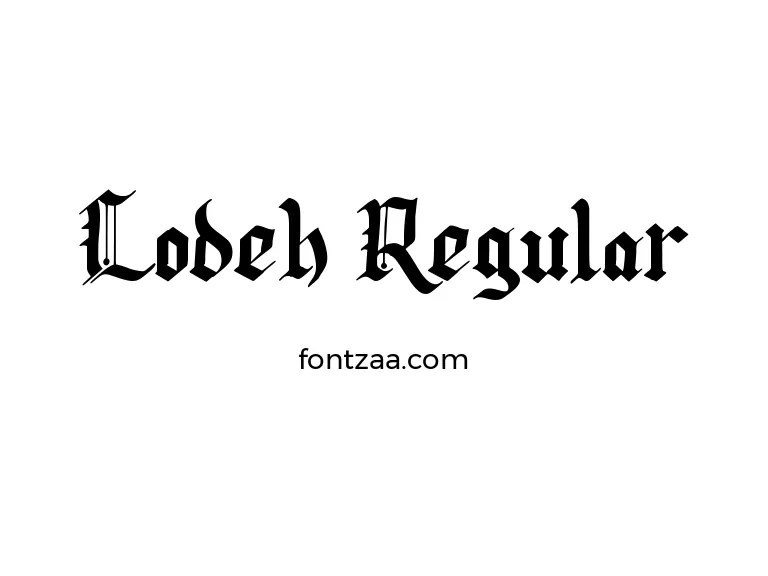
Lodeh Regular Font is a dramatic typeface created for designers who want typography with a distinctive visual identity. Lodeh Regular Font brings a dramatic personality to typography and gives designers a flexible starting point for creative display work. Using generous space around the lettering can help the details of the typeface remain visible instead of competing with other elements. Its letter shapes become especially noticeable at larger sizes, where spacing and proportions can be explored more clearly. The font can work as the primary visual element in a minimal layout or as part of a more detailed composition. Designers may explore it across horror posters, game artwork, album covers, Halloween graphics and dark branding, depending on the tone and requirements of the project. Designers should evaluate the typeface inside the real project because a standalone preview cannot show every possible visual combination. For layouts containing longer information, pairing it with a simpler supporting typeface can improve readability and hierarchy. Source metadata currently associates the font with Dm Letter Studio. The listed license is Free for personal use, although users should still review the original font package before commercial use. A few quick layout variations can help determine where the font creates the strongest visual result.
With its distinctive letterforms, Lodeh Regular Font can introduce a dramatic character into headlines, branding and promotional layouts. The typeface can change considerably depending on tracking, scale, alignment, background and surrounding imagery. Different color combinations can make the same font feel subtle, energetic, premium or highly decorative. Using generous space around the lettering can help the details of the typeface remain visible instead of competing with other elements. Its display-focused appearance makes it worth testing in horror posters, game artwork, album covers, Halloween graphics and dark branding. Keeping secondary typography simple often allows the distinctive qualities of the main font to remain more visible. Previewing the final layout on both large and small screens helps identify spacing and readability problems early. According to the available font information, the typeface is associated with Dm Letter Studio. The listed license is Free for personal use, although users should still review the original font package before commercial use. The most effective treatment will vary by project, so designers should compare several versions before finalizing the artwork.
Lodeh Regular Font stands out through its individual shapes and can become an important visual element in digital and print projects. The typeface can change considerably depending on tracking, scale, alignment, background and surrounding imagery. Using generous space around the lettering can help the details of the typeface remain visible instead of competing with other elements. Different color combinations can make the same font feel subtle, energetic, premium or highly decorative. Possible applications include horror posters, game artwork, album covers, Halloween graphics and dark branding. For layouts containing longer information, pairing it with a simpler supporting typeface can improve readability and hierarchy. Keeping secondary typography simple often allows the distinctive qualities of the main font to remain more visible. Source metadata currently associates the font with Dm Letter Studio. The available licensing label is Free for personal use, but redistribution and commercial permissions should always be confirmed from the original source. The most effective treatment will vary by project, so designers should compare several versions before finalizing the artwork.
Lodeh Regular Font Family
Designers can use the Lodeh Regular Font Family in several ways by varying scale, alignment, background treatment and supporting typography. Designers exploring a dramatic typeface can use Lodeh Regular Font to add a more recognizable visual voice to font-family exploration. Different color combinations can make the same font feel subtle, energetic, premium or highly decorative. Using generous space around the lettering can help the details of the typeface remain visible instead of competing with other elements. Testing several arrangements before choosing the final version can reveal which characteristics of the typeface work best. Designers may explore it across horror posters, game artwork, album covers, Halloween graphics and dark branding, depending on the tone and requirements of the project. For layouts containing longer information, pairing it with a simpler supporting typeface can improve readability and hierarchy. Designers should evaluate the typeface inside the real project because a standalone preview cannot show every possible visual combination. Source metadata currently associates the font with Dm Letter Studio. The listed license is Free for personal use, although users should still review the original font package before commercial use. Its final appearance will depend heavily on the surrounding colors, imagery, spacing and supporting typography.
| Designer | Dm Letter Studio |
Font Pairing Ideas for Lodeh Regular Font
For projects that need typography with a stronger identity, Lodeh Regular Font offers a dramatic direction suited to combining the display font with supporting typefaces. The typeface can change considerably depending on tracking, scale, alignment, background and surrounding imagery. Testing several arrangements before choosing the final version can reveal which characteristics of the typeface work best. Different color combinations can make the same font feel subtle, energetic, premium or highly decorative. Designers may explore it across horror posters, game artwork, album covers, Halloween graphics and dark branding, depending on the tone and requirements of the project. Previewing the final layout on both large and small screens helps identify spacing and readability problems early. Designers should evaluate the typeface inside the real project because a standalone preview cannot show every possible visual combination. According to the available font information, the typeface is associated with Dm Letter Studio. The available licensing label is Free for personal use, but redistribution and commercial permissions should always be confirmed from the original source. A few quick layout variations can help determine where the font creates the strongest visual result.
Branding Ideas With Lodeh Regular Font
Designers exploring a dramatic typeface can use Lodeh Regular Font to add a more recognizable visual voice to logos, wordmarks and visual identity systems. Different color combinations can make the same font feel subtle, energetic, premium or highly decorative. The font can work as the primary visual element in a minimal layout or as part of a more detailed composition. The typeface can change considerably depending on tracking, scale, alignment, background and surrounding imagery. Designers may explore it across horror posters, game artwork, album covers, Halloween graphics and dark branding, depending on the tone and requirements of the project. A clean serif or sans serif companion can handle smaller text while this font remains focused on headlines and key messages. For layouts containing longer information, pairing it with a simpler supporting typeface can improve readability and hierarchy. The available source information lists Dm Letter Studio as the designer or publisher. License details are currently listed as Free for personal use. Users should verify the supplied documentation before using the font in products or paid projects. A few quick layout variations can help determine where the font creates the strongest visual result.
Social Media Ideas With Lodeh Regular Font
Lodeh Regular Font brings a dramatic personality to typography and gives designers a flexible starting point for posters, campaigns, thumbnails and promotional content. Different color combinations can make the same font feel subtle, energetic, premium or highly decorative. Using generous space around the lettering can help the details of the typeface remain visible instead of competing with other elements. Its letter shapes become especially noticeable at larger sizes, where spacing and proportions can be explored more clearly. Possible applications include horror posters, game artwork, album covers, Halloween graphics and dark branding. Keeping secondary typography simple often allows the distinctive qualities of the main font to remain more visible. For layouts containing longer information, pairing it with a simpler supporting typeface can improve readability and hierarchy. The designer or publisher information available for this typeface is Dm Letter Studio. License details are currently listed as Free for personal use. Users should verify the supplied documentation before using the font in products or paid projects. Its final appearance will depend heavily on the surrounding colors, imagery, spacing and supporting typography.
Visual Features of Lodeh Regular Font
The visual character of Lodeh Regular Font makes it an interesting choice for designers working on the visual characteristics and design personality of the typeface. Testing several arrangements before choosing the final version can reveal which characteristics of the typeface work best. Using generous space around the lettering can help the details of the typeface remain visible instead of competing with other elements. Its letter shapes become especially noticeable at larger sizes, where spacing and proportions can be explored more clearly. Possible applications include horror posters, game artwork, album covers, Halloween graphics and dark branding. Print and digital layouts may require different sizing and spacing, so testing the actual output dimensions is recommended. A clean serif or sans serif companion can handle smaller text while this font remains focused on headlines and key messages. Source metadata currently associates the font with Dm Letter Studio. The listed license is Free for personal use, although users should still review the original font package before commercial use. Testing the font with the actual project text can provide a much better impression than viewing isolated sample characters.